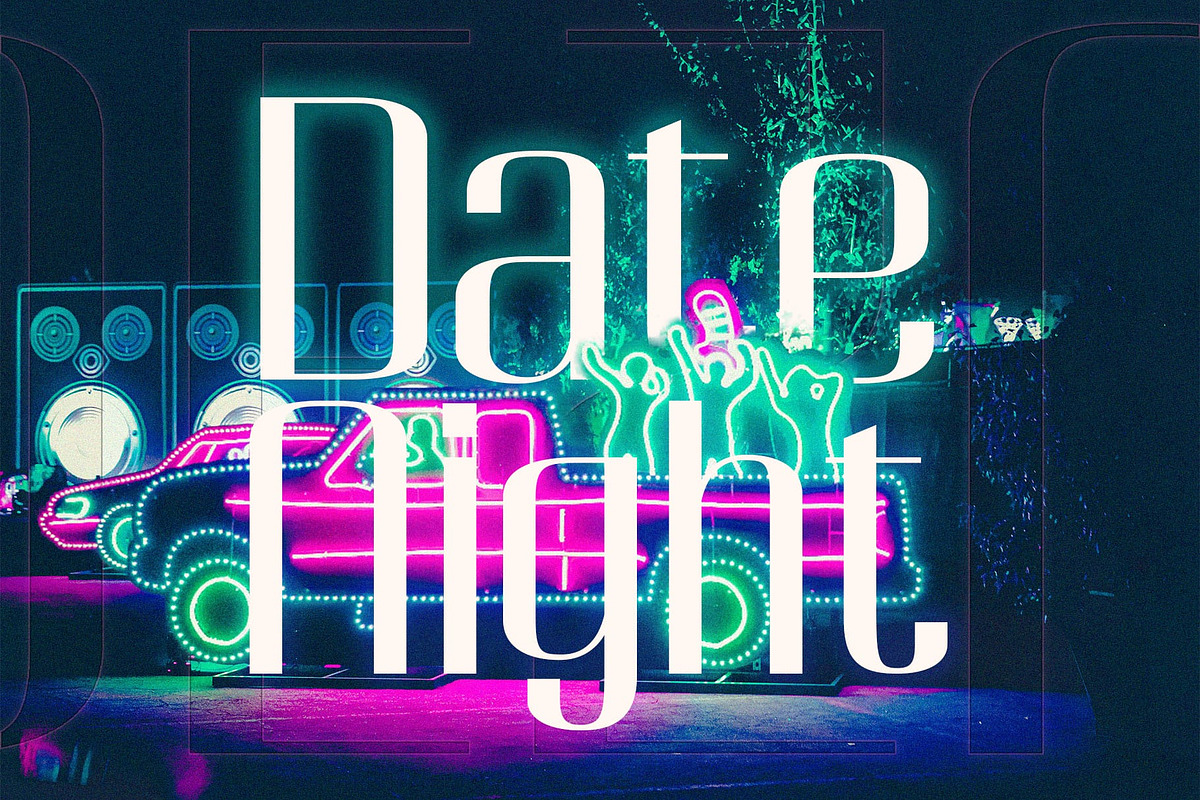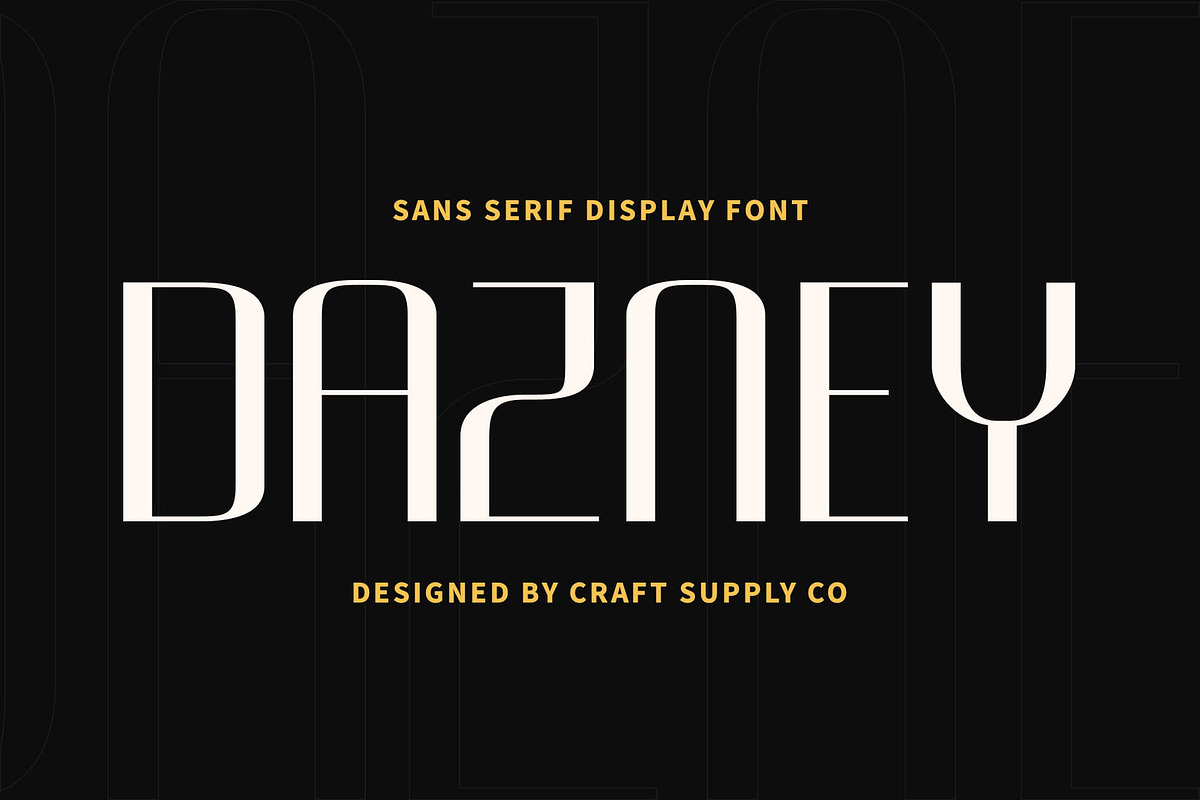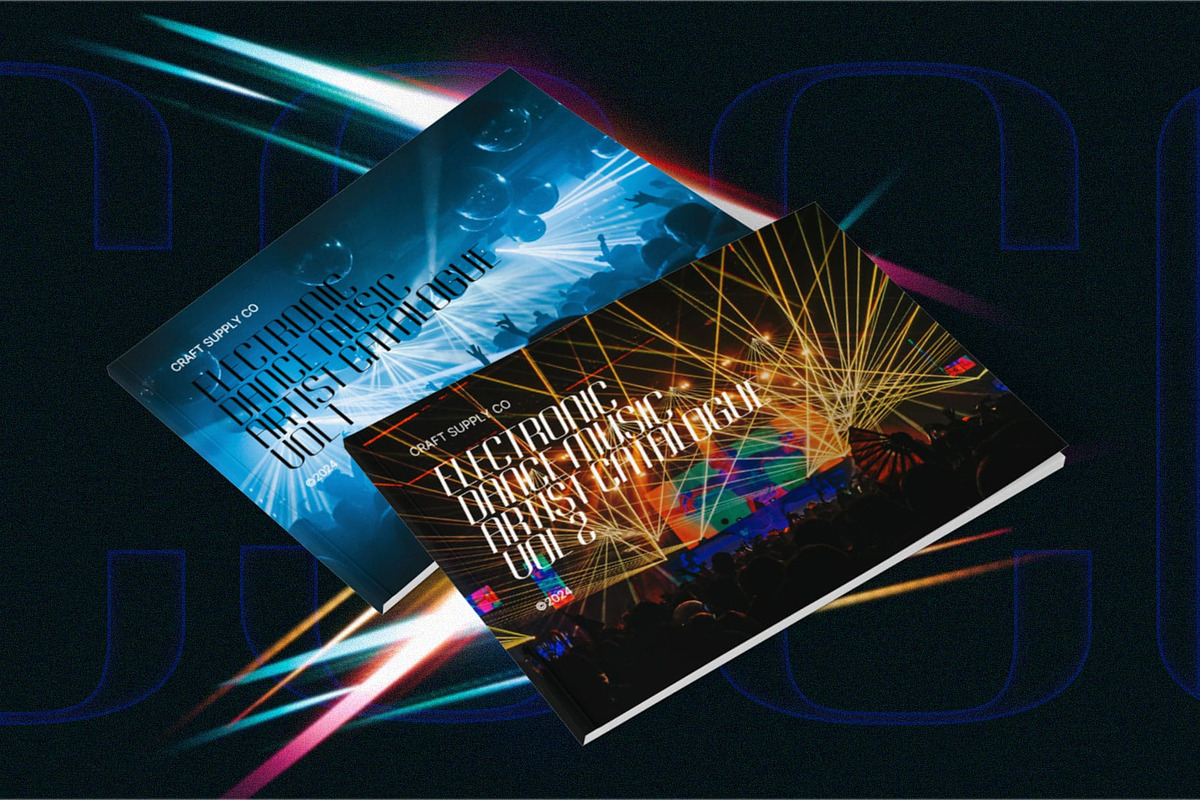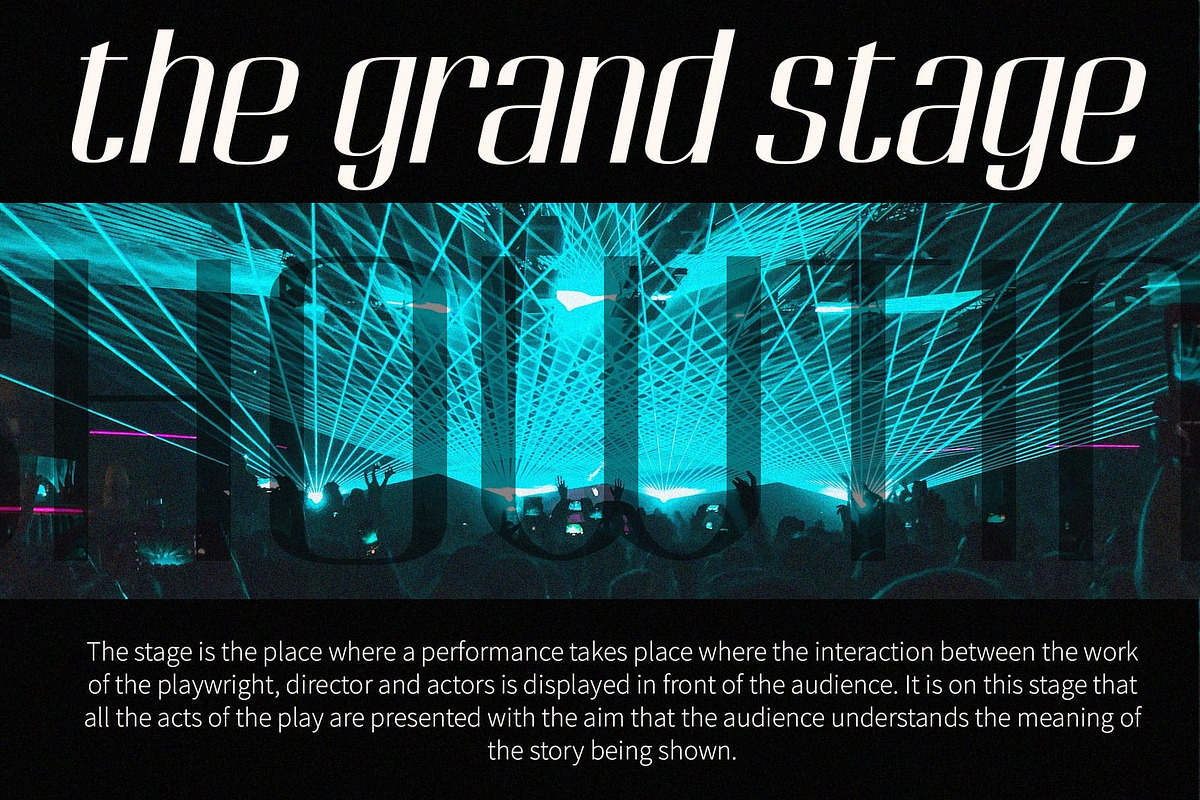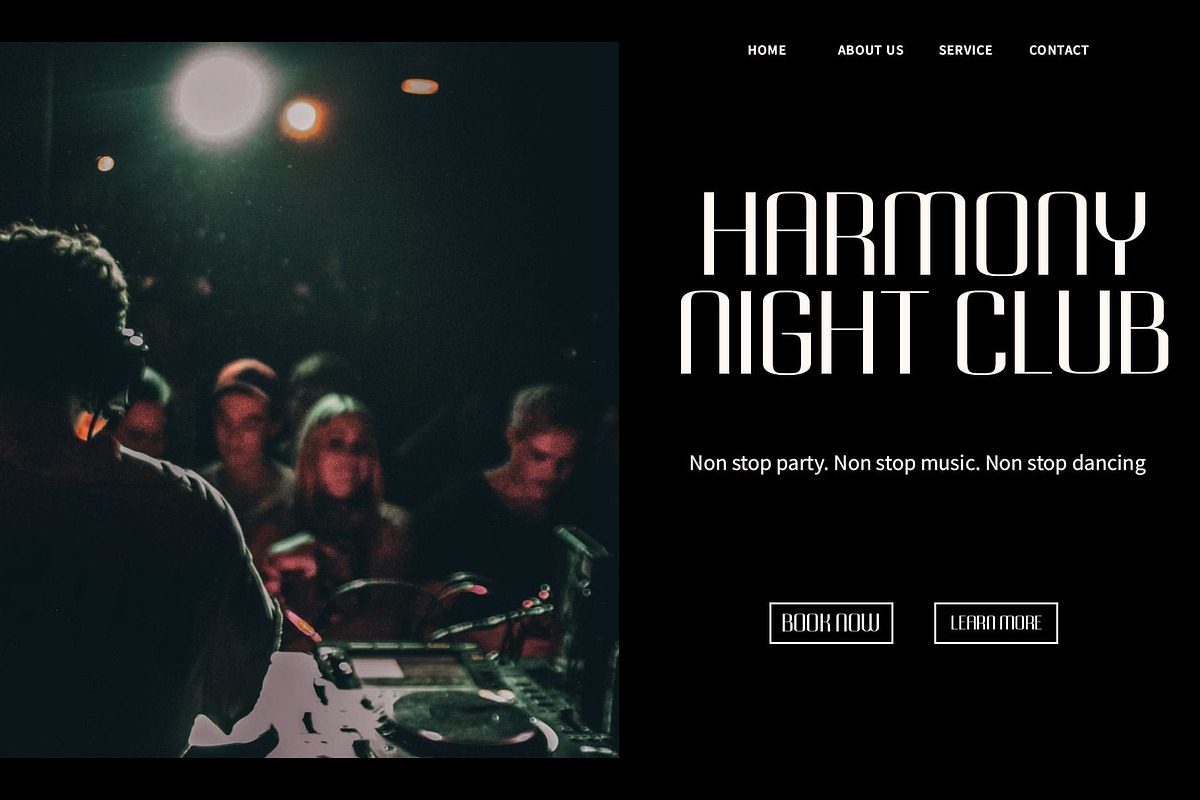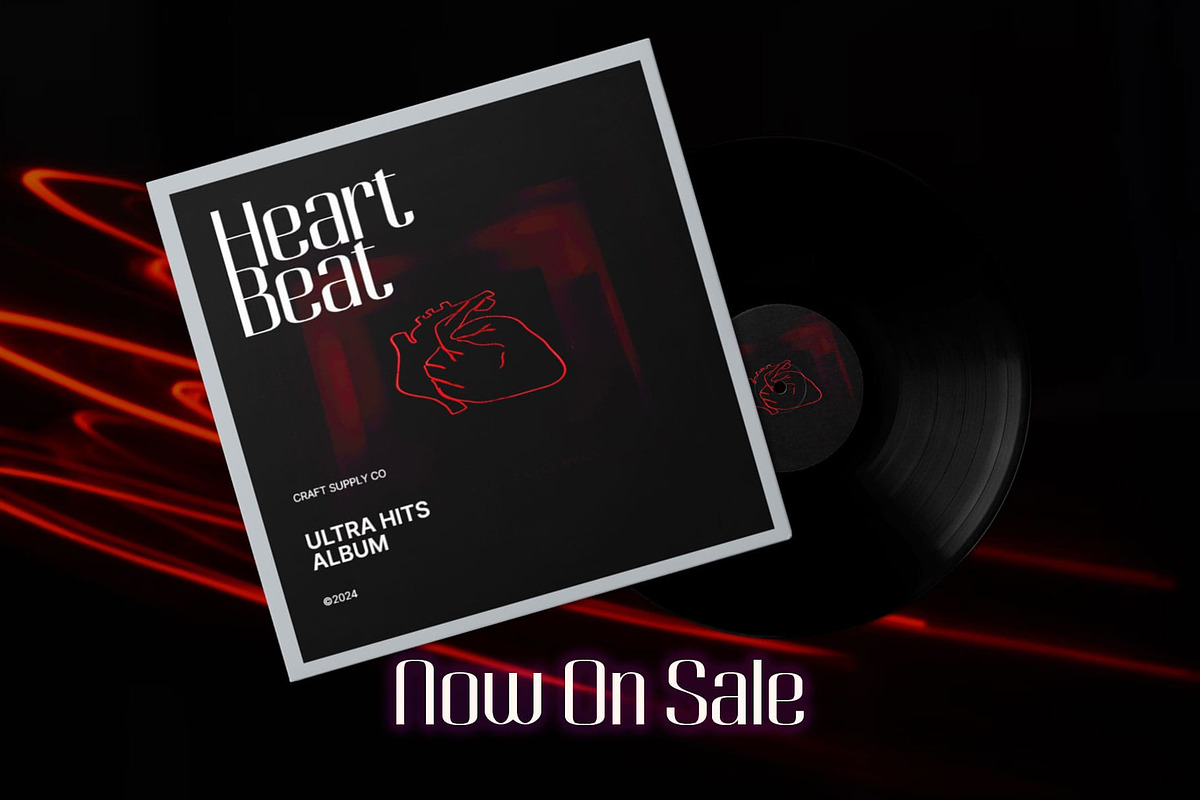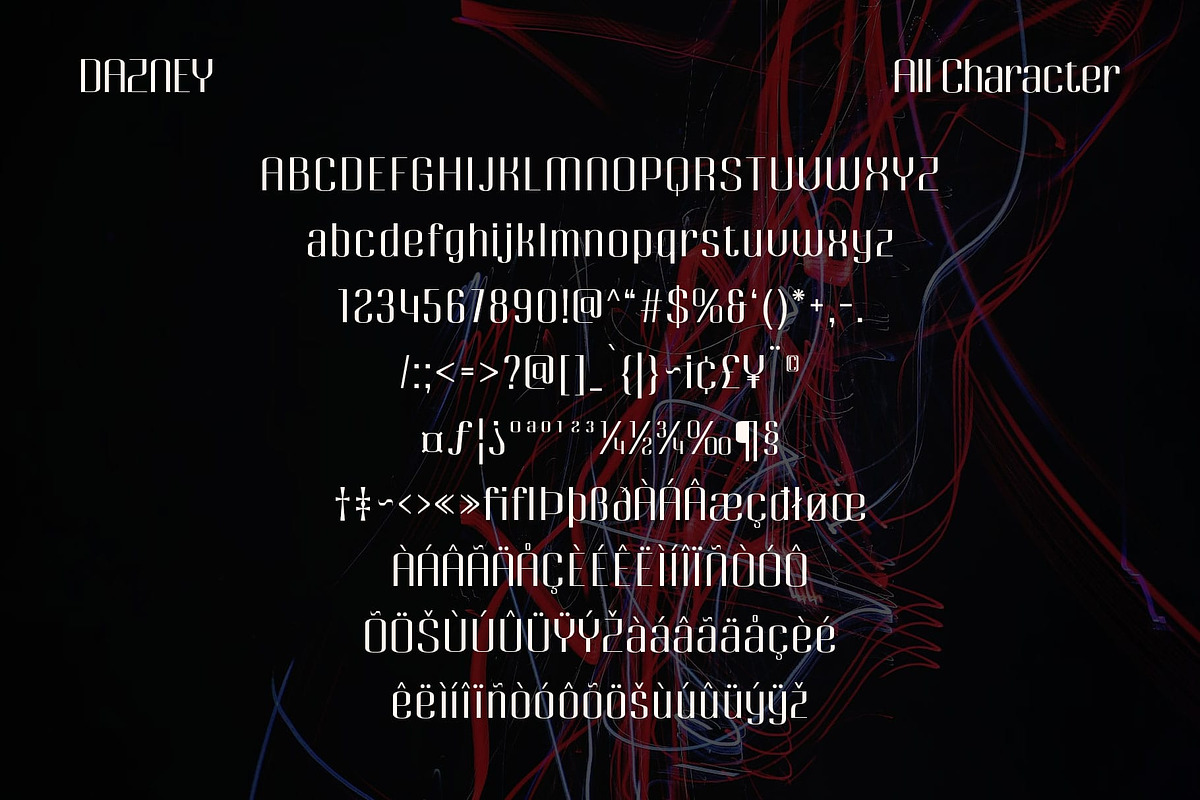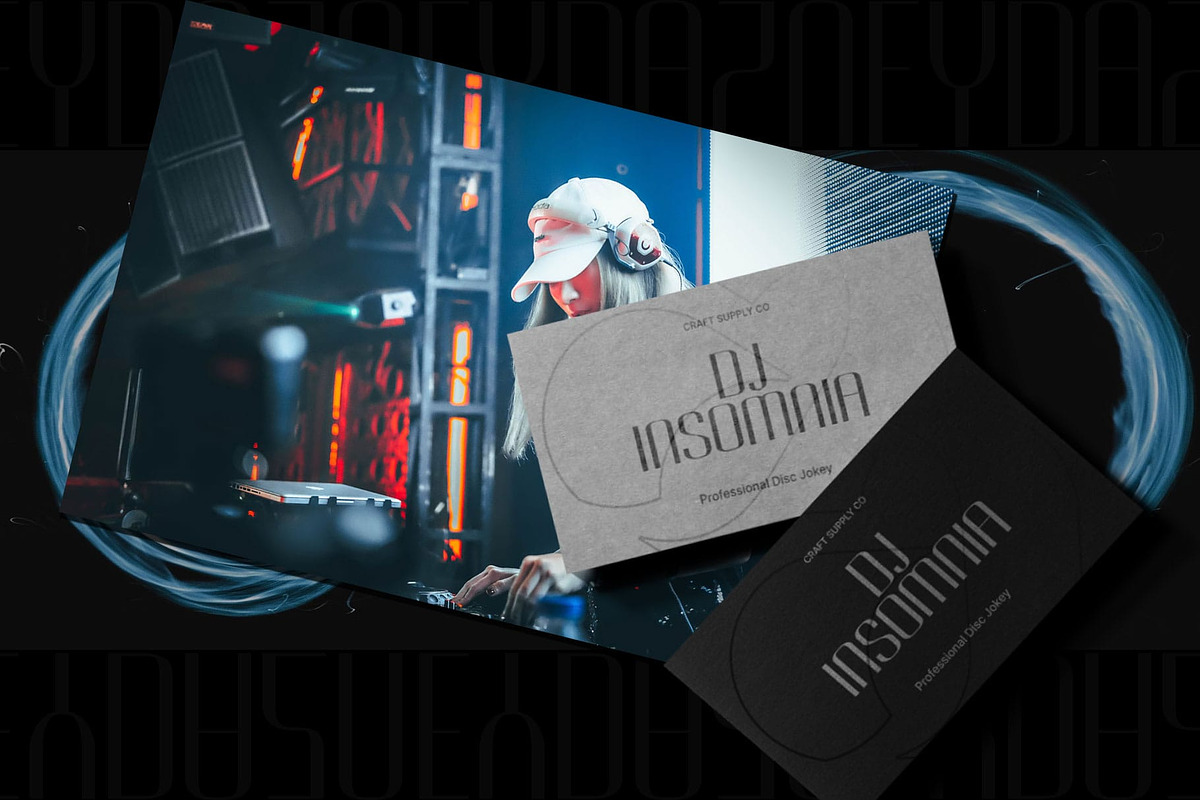
Dazney – Modern Sans Serif
Dazney: Embracing Modernity in Sans Serif Typography
High Contrast, Modern Form Dazney presents a striking sans serif typeface characterized by its high contrast and contemporary shapes. Its sleek and modern design makes it an ideal choice for various display purposes.
Sleek and Versatile With its clean lines and sharp edges, Dazney exudes sophistication and versatility. It effortlessly adapts to different design contexts, from digital interfaces to printed materials.
Perfect for Display Projects Tailored for display applications, Dazney shines in projects where impact is paramount. Its high-contrast letterforms command attention and ensure clear communication of your message.
Seamless Integration Dazney seamlessly integrates into modern design workflows, offering designers a reliable tool for creating eye-catching visuals. Its modern form and high legibility make it a valuable asset in any designer’s toolkit.
Modern Display Typeface Dazney emerges as a contemporary sans serif font designed to meet the demands of modern design projects. With its high contrast and sleek form, it offers versatility and impact, making it a go-to choice for display typography needs. Step into the world of Dazney and elevate your designs with its modern flair and timeless appeal.